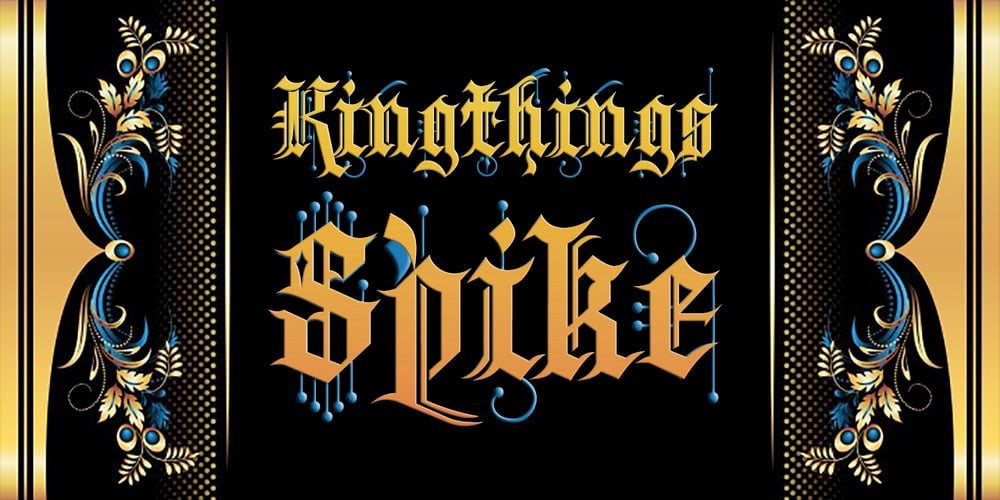
Kingthings Spike Pro Font Family was designed by Roger S. Nelsson, Kevin King and published by CheapProFonts. Kingthings Spike Pro contains 2 styles and family package options. You gotta love this extreme take on the “gothic” blackletter traditions! Roger Nelsson edited a few letters, drastically improved the spacing – and then gave it the usual large CheapProFonts character set. Fun! Kevin King says: “Kingthings Spike was made because Buffy has one, I made Willow… Xander is yet to come. Oh and because I hate Engravers Old English! Pugin, eat my shorts! Sorry!” Kingthings Spikeless is a toned down version of Kingthings Spike. Kevin King says: “Kingthings Spikeless was requested by those who actually want to read text… well I call that tedious, but if you must, here it is no flourishes, just my small homage to black-letter.” ALL fonts from CheapProFonts have very extensive language support: They contain some unusual diacritic letters (some of which are contained in the Latin Extended-B Unicode block) supporting: Cornish, Filipino (Tagalog), Guarani, Luxembourgian, Malagasy, Romanian, Ulithian and Welsh. They also contain all glyphs in the Latin Extended-A Unicode block (which among others cover the Central European and Baltic areas) supporting: Afrikaans, Belarusian (Lacinka), Bosnian, Catalan, Chichewa, Croatian, Czech, Dutch, Esperanto, Greenlandic, Hungarian, Kashubian, Kurdish (Kurmanji), Latvian, Lithuanian, Maltese, Maori, Polish, Saami (Inari), Saami (North), Serbian (latin), Slovak(ian), Slovene, Sorbian (Lower), Sorbian (Upper), Turkish and Turkmen. And they of course contain all the usual “western” glyphs supporting: Albanian, Basque, Breton, Chamorro, Danish, Estonian, Faroese, Finnish, French, Frisian, Galican, German, Icelandic, Indonesian, Irish (Gaelic), Italian, Northern Sotho, Norwegian, Occitan, Portuguese, Rhaeto-Romance, Sami (Lule), Sami (South), Scots (Gaelic), Spanish, Swedish, Tswana, Walloon and Yapese.